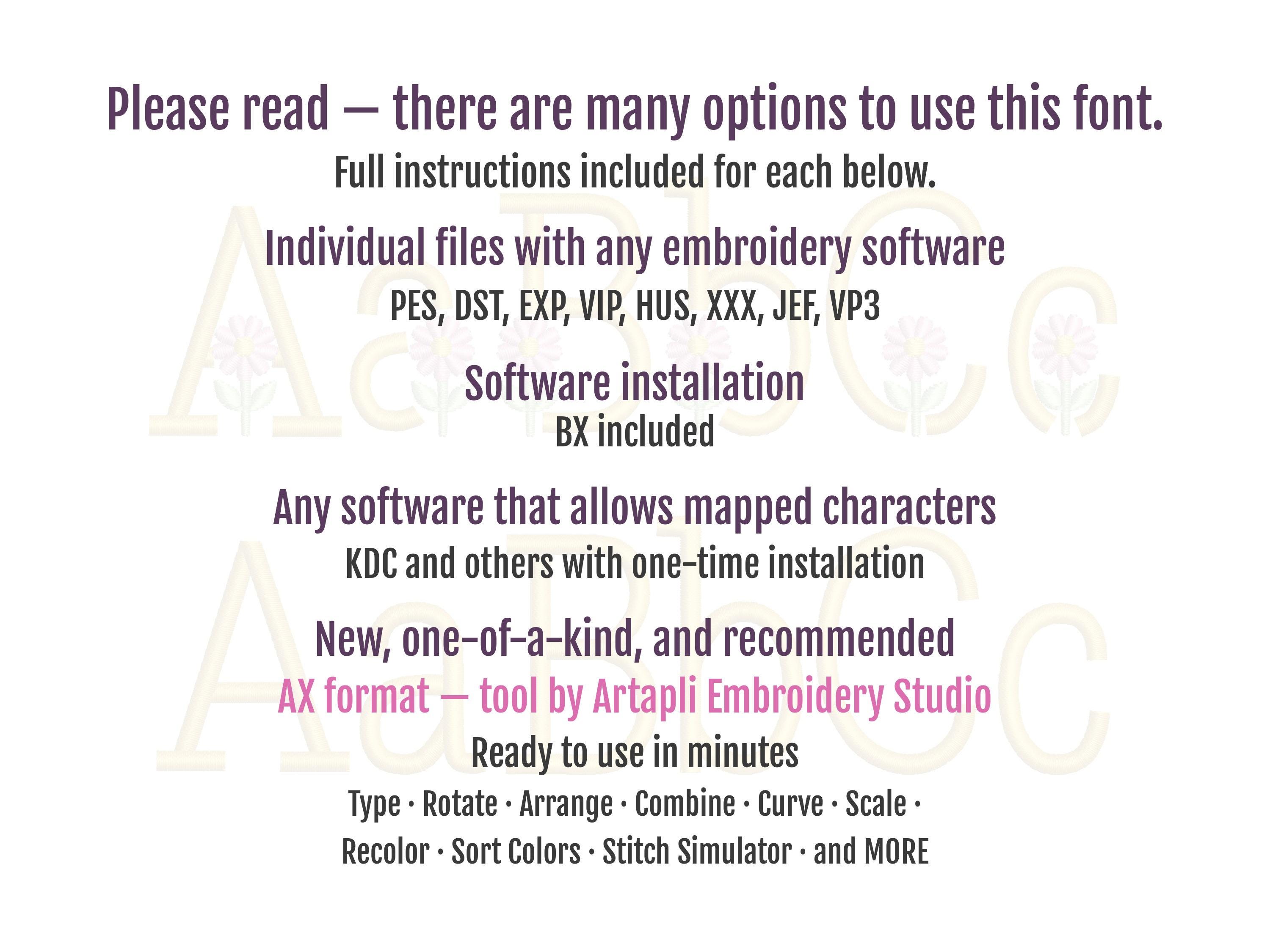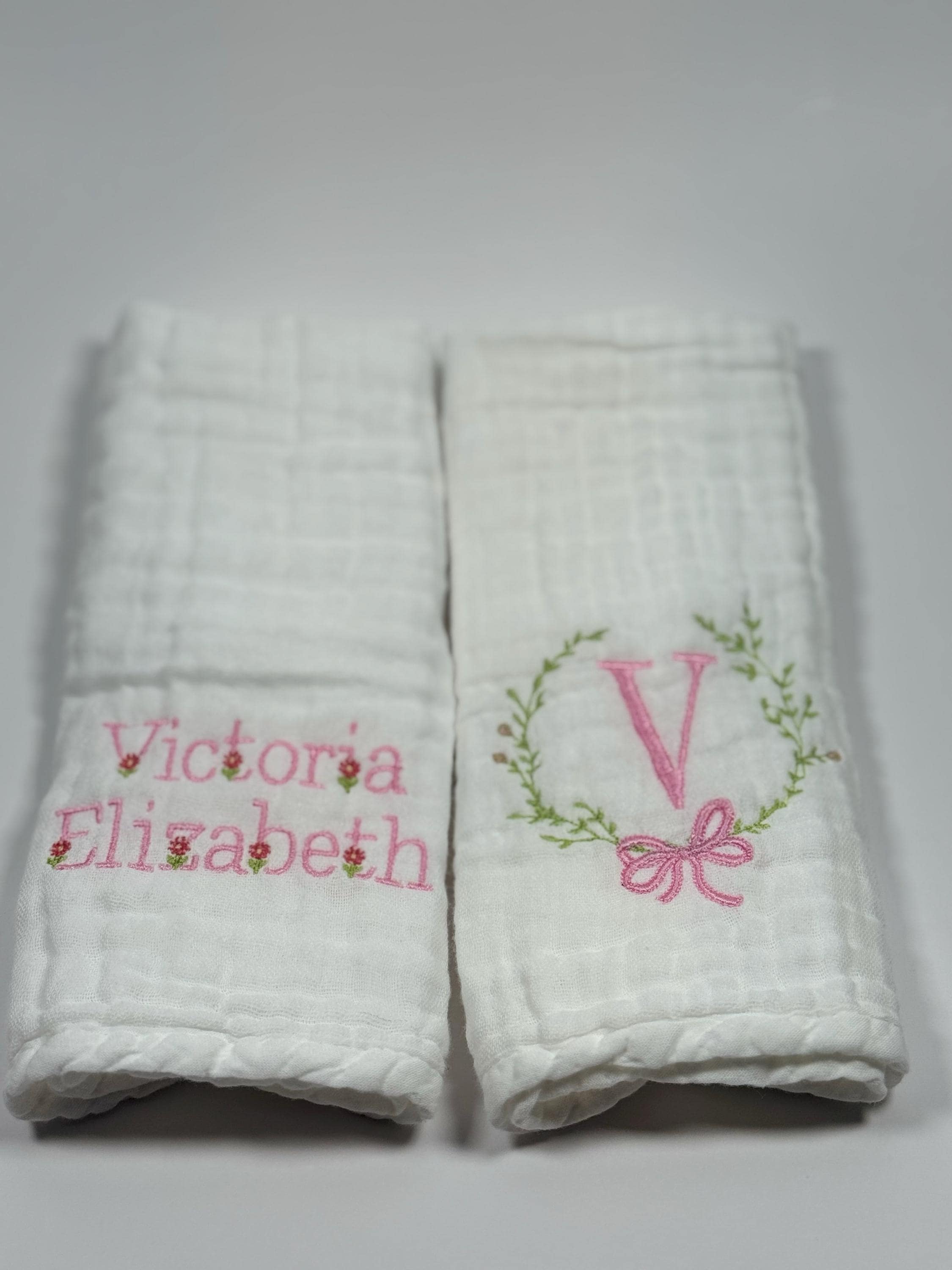
Satin stitch Spring Flower Font SET of 2 fonts blank and flowered machine embroidery designs kids baby monogram sizes 1 up to 2.9 inch BX
Included 2 fonts:
* satin stitch font with Flower
* satin stitch font